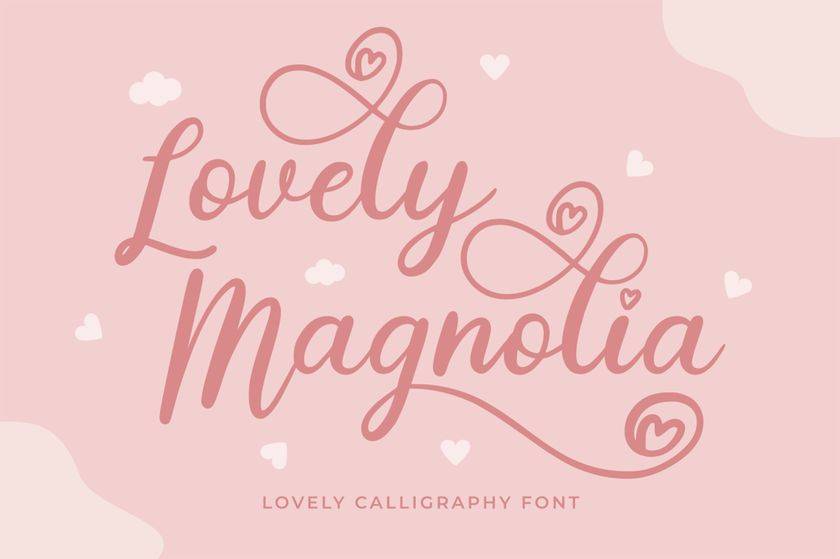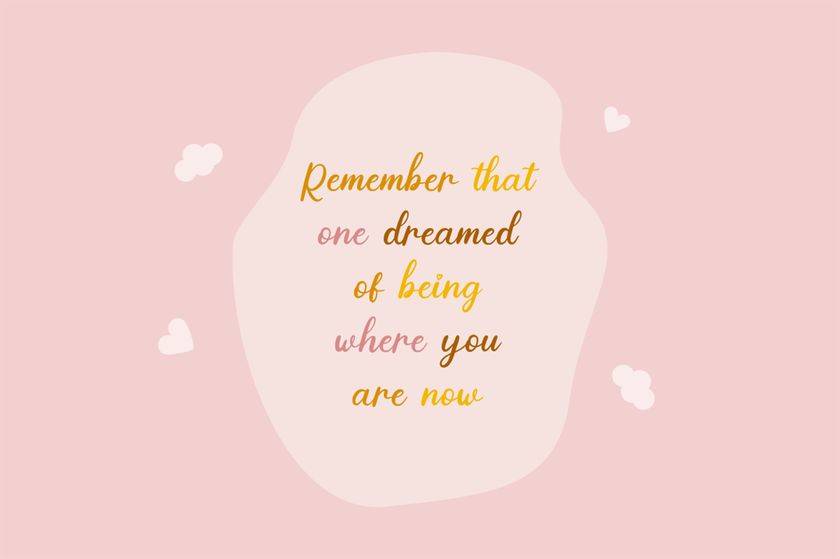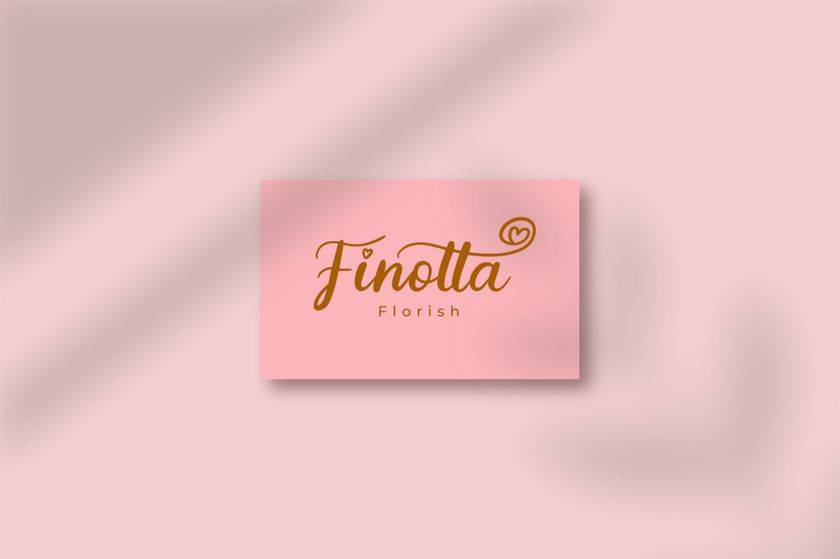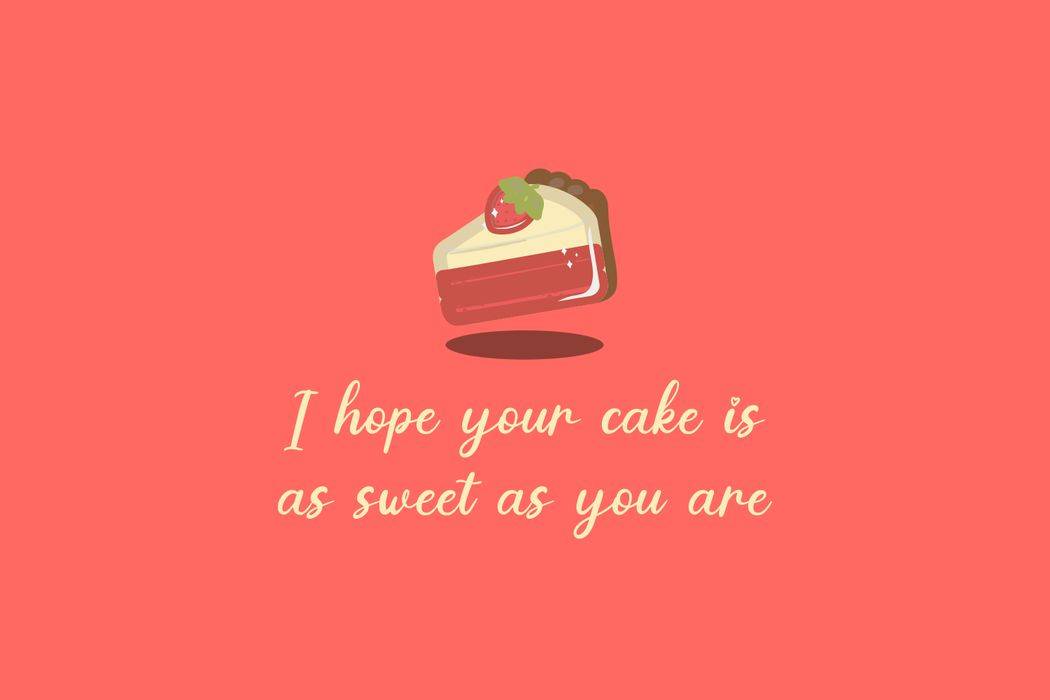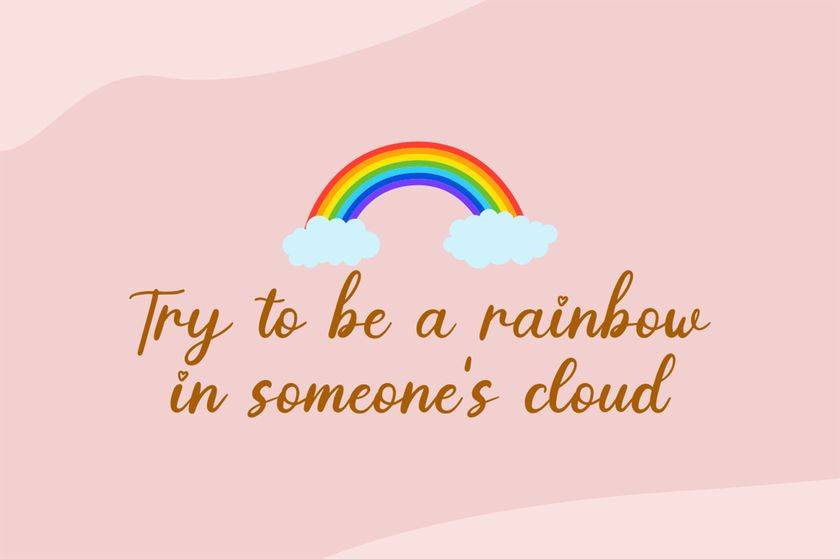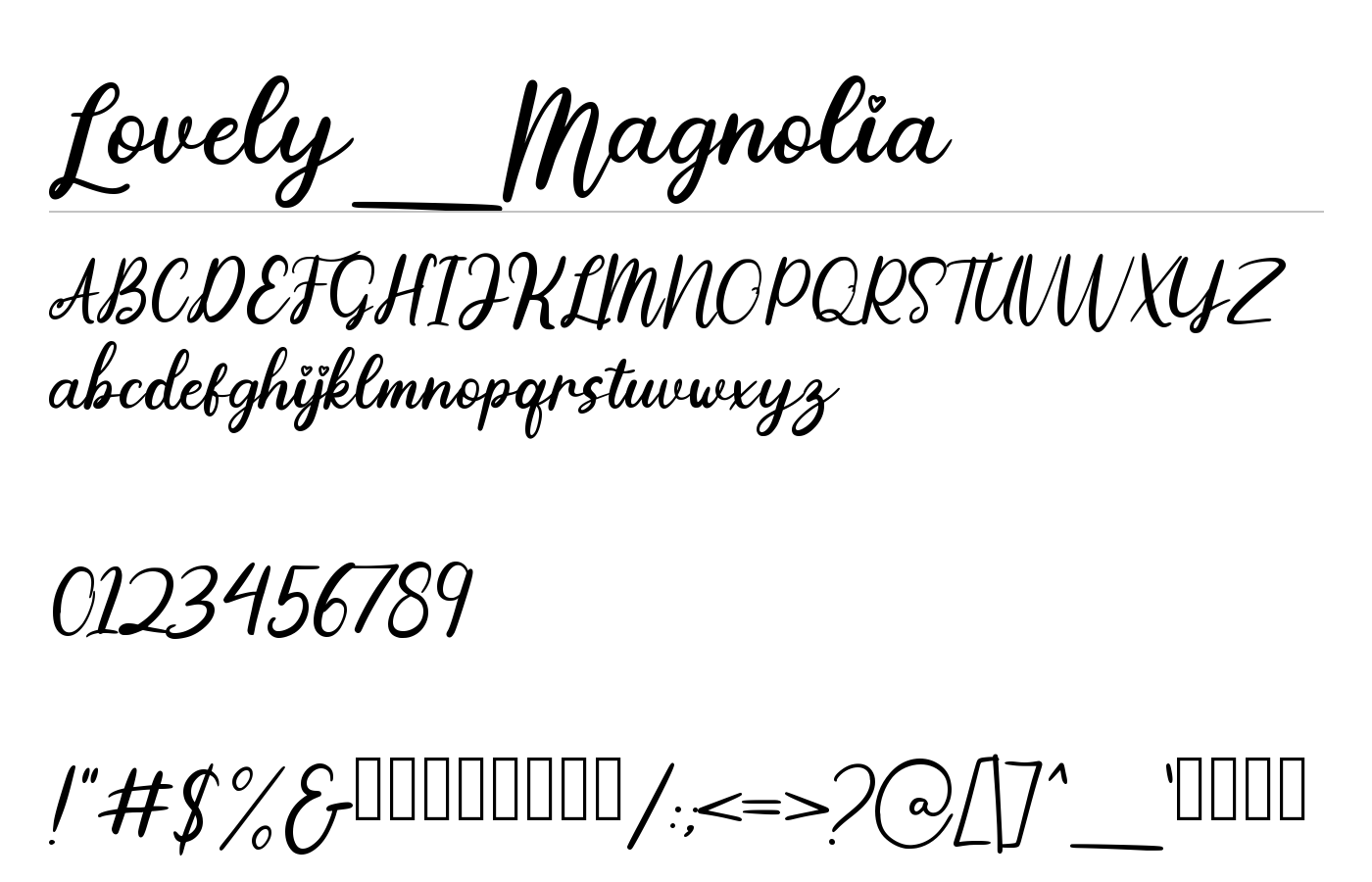
Lovely Magnolia is a charming script font with a smooth, flowing style that feels elegant yet approachable. Its moderate weight and slightly condensed letterforms, along with playful touches like heart-shaped dots on the i and j, give it a warm, friendly personality perfect for invitations, branding, and feminine, creative projects. This font works well for headlines and logos where a delicate, handcrafted look is desired.
Lovely Magnolia Font